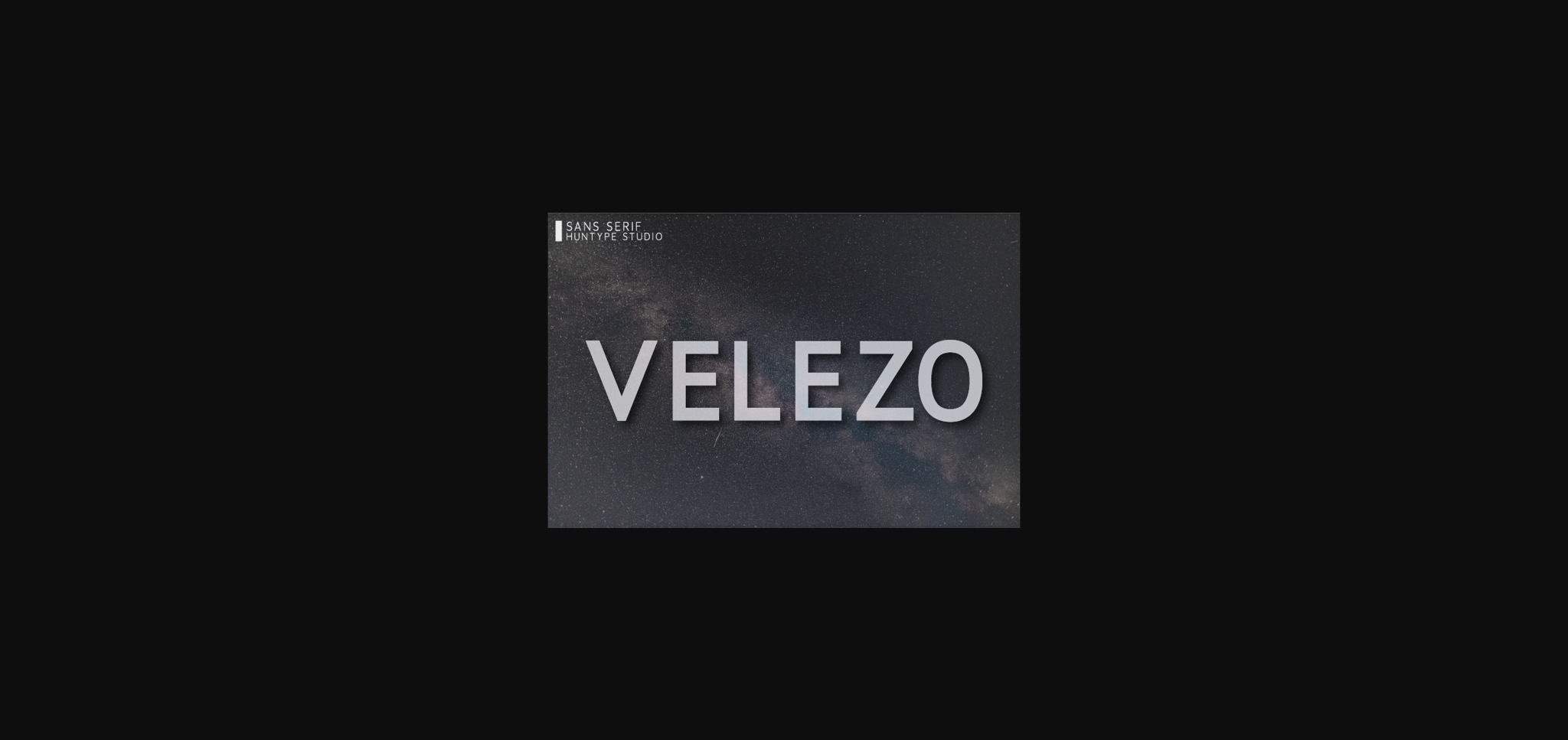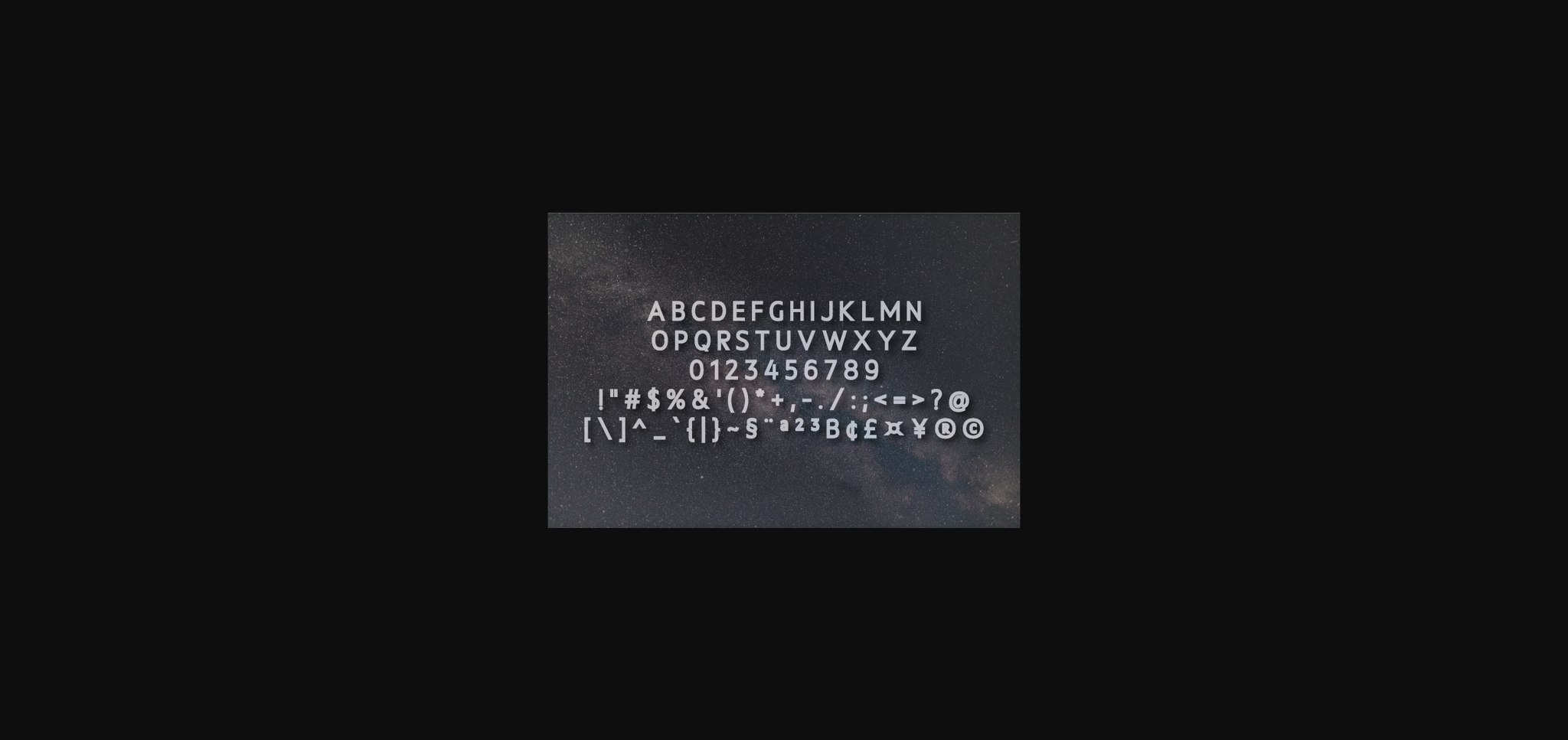
About Velezo Font
Velezo is a modern sans serif font. It will complement any design need perfectly with its perfectly balanced mix of the smooth and sharp!